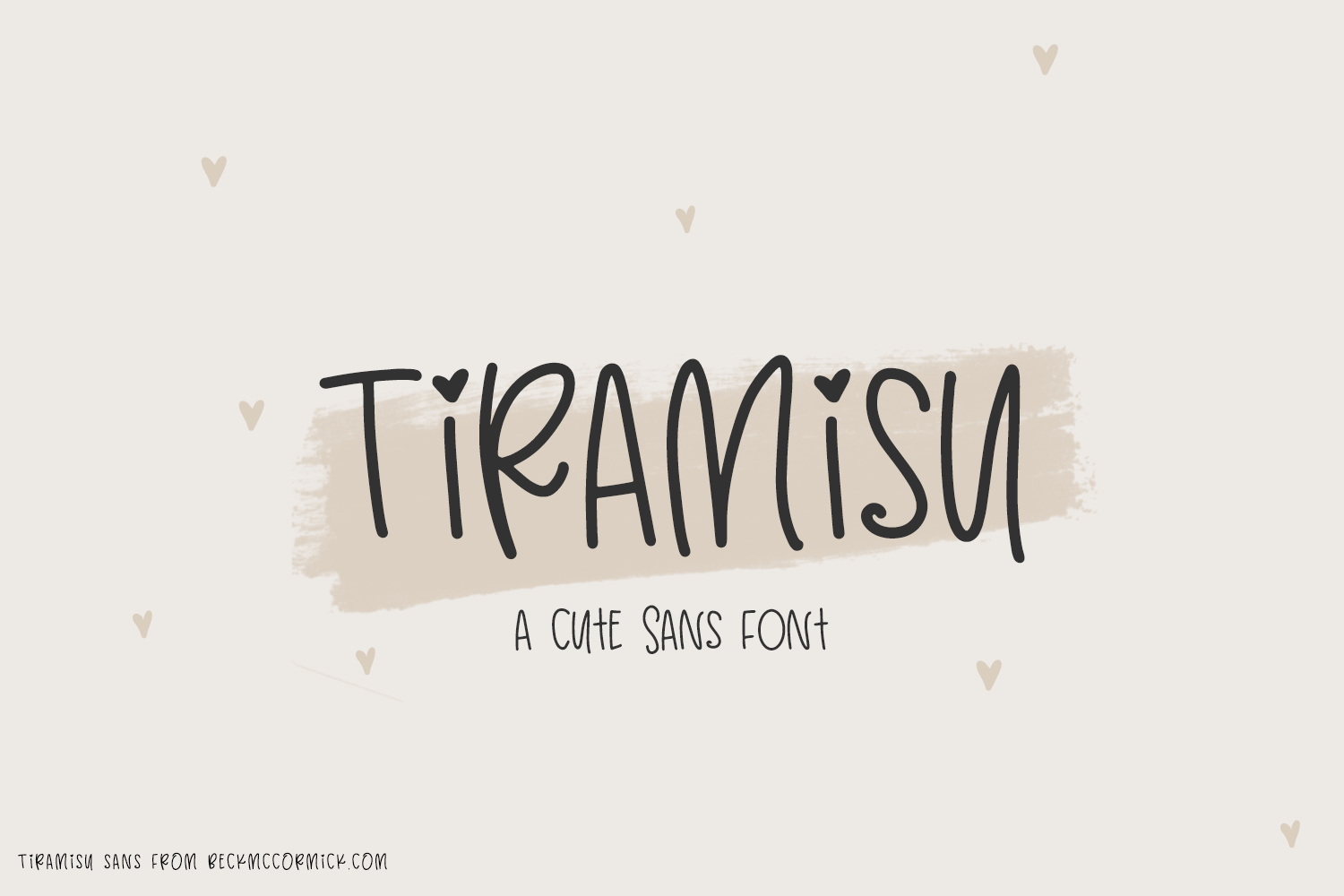
Introducing Tiramisu Sans, a cute mixed-case sans font.
Tiramisu Sans is best for:
- adorable quote graphics for social media
- playful logos + branding
- website design + website accents - think travel blogs, fashion blogs, & more
- SVG designs
- fun sticker designs
Tiramisu Sans includes:
- 2 alternate heart bullet points